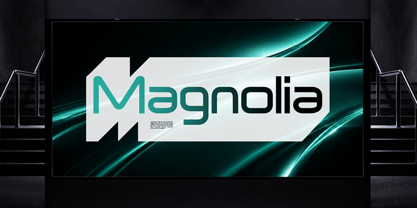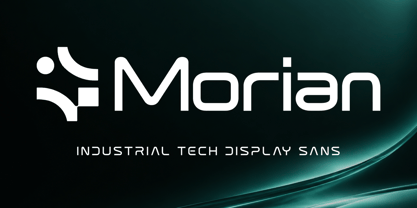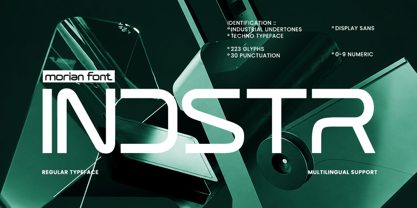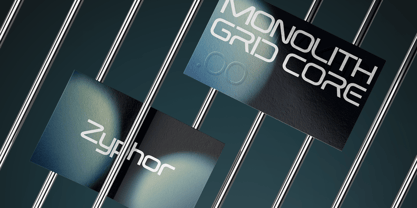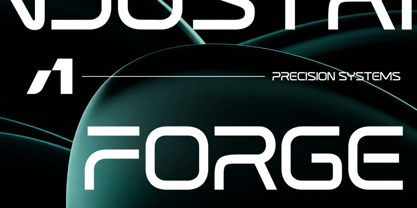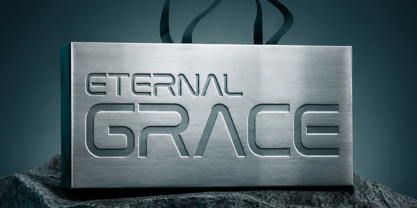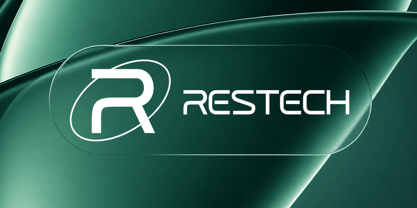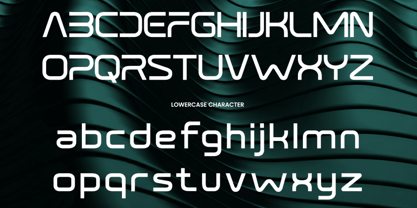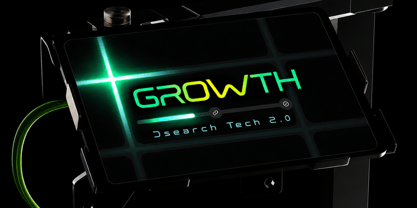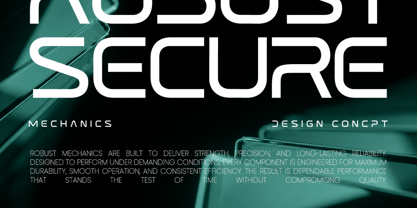
Morian
by Rasio Studio
The Morian Font Family was designed by Fajar Indra and published by Rasio Studio. Morian contains 1 styles. More about this family
Morian is an industrial-inspired display sans serif that combines futuristic aesthetics with refined geometric construction, creating a distinctive typeface for contemporary visual communication. Every character is built with balanced proportions, rounded corners, open apertures, and smooth transitions that soften its technical appearance while preserving a precise, engineered personality.
Relevance and Use Case is perfect for technology-driven branding, futuristic visual identities, and modern digital products. Its clean industrial character works exceptionally well for software companies, AI startups, robotics brands, gaming interfaces, esports graphics, product packaging, technology presentations, website headers, mobile applications, concept branding, innovation campaigns, and editorial headlines that demand a sleek, forward-thinking appearance.
Designers: Fajar Indra
Foundry: Rasio Studio